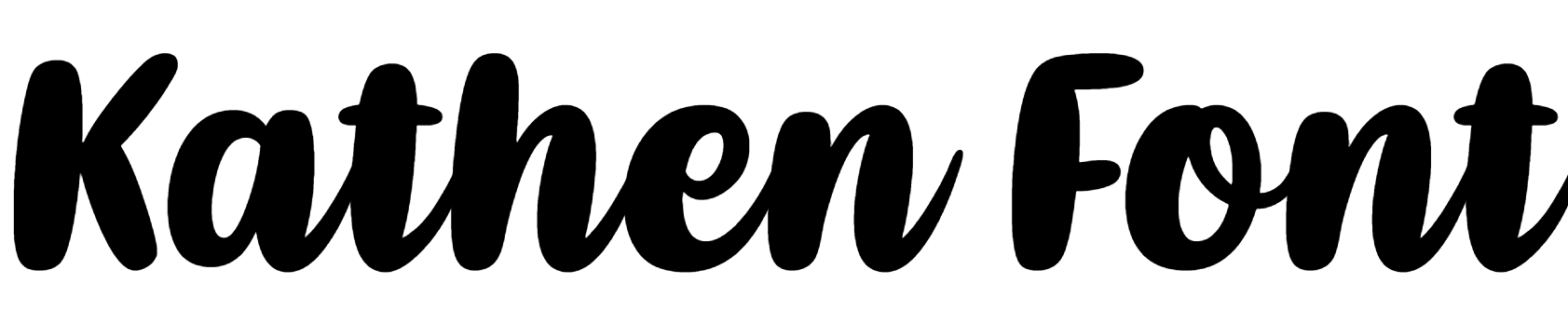
Kathen
Kathen is a script font designed by Situjuh Nazara and published by 7NTypes (2018). It has that hand-lettered, flowing feel people look for when regular type seems too stiff. It's a free download, and you can try it with your own text in the preview above first.
- Designer: Situjuh Nazara
- Publisher: 7NTypes
- Glyphs: 233
- OpenType features: 2 stylistic sets
- Extra characters: 18 copy-and-paste alternates (Private Use Area)
You get every letter from A to Z in both cases and all the numbers from 0 to 9, which means Kathen can handle full sentences, dates and prices. Everyday marks like &, !, ? and @ are there too. Thanks to its accented letters, it also works for Spanish, French, German, Portuguese and Italian, not just English.
Designers usually reach for fonts like Kathen when they're making wedding invitations, logos and signature-style headings. Its lowercase letters are tall compared to the capitals, which keeps it readable at smaller sizes. Script fonts read best in short bursts, so keep it to names, titles and one-line quotes. Skip all caps: script capitals are drawn to start a word, not to fill one.
Yes. Kathen includes the accented letters needed for Spanish, French, German, Portuguese and Italian, so it works for more than just English.